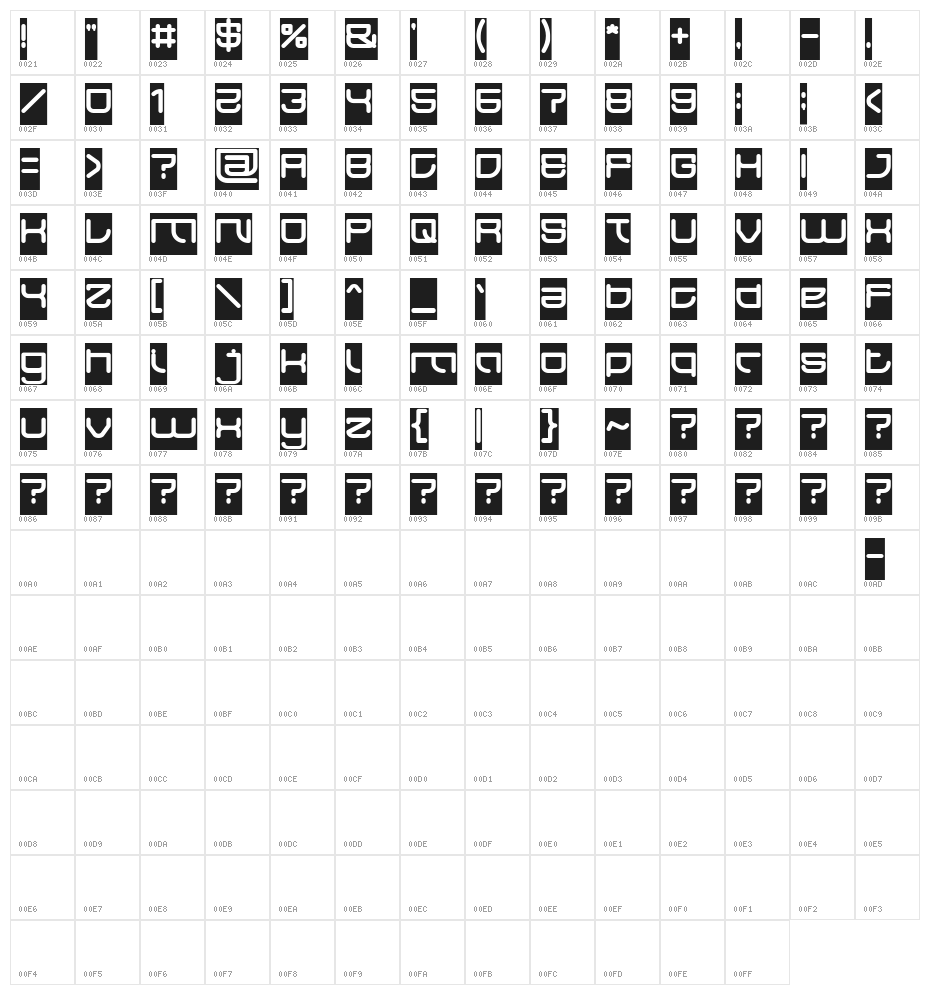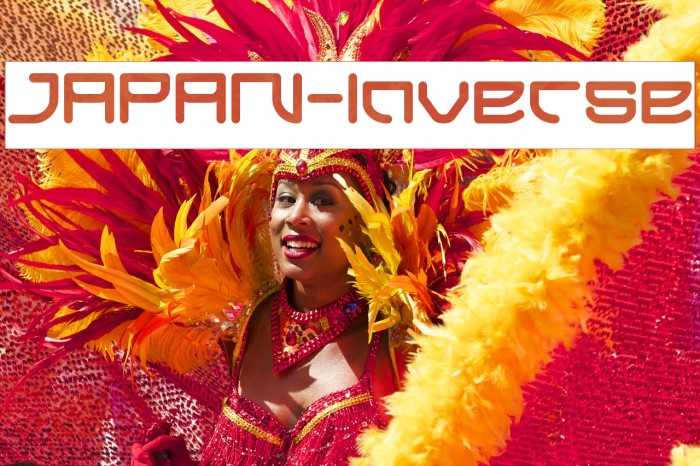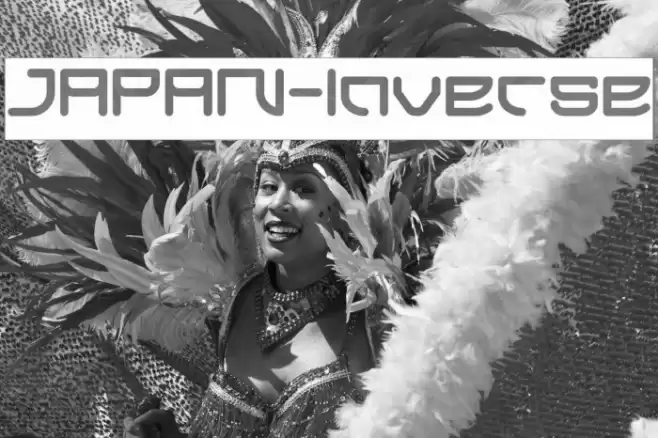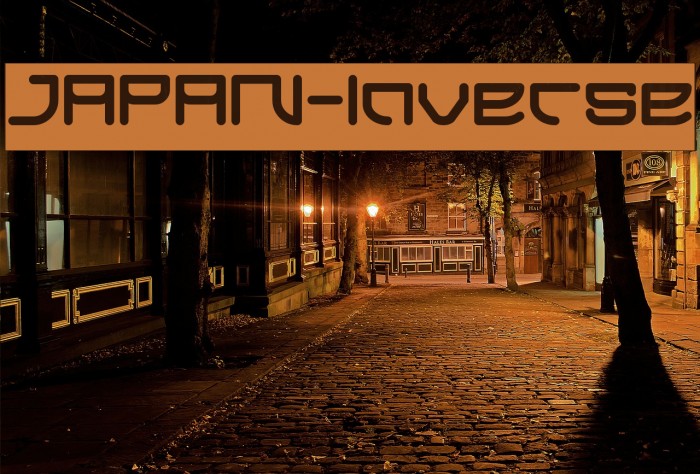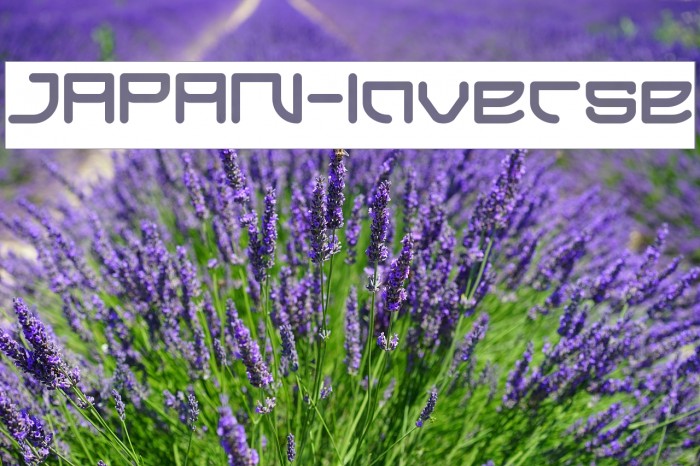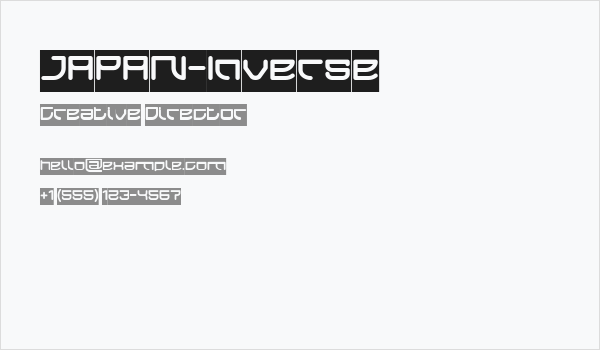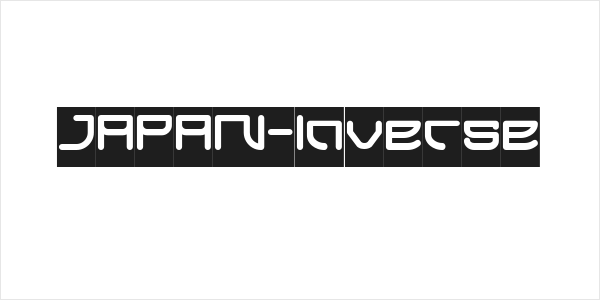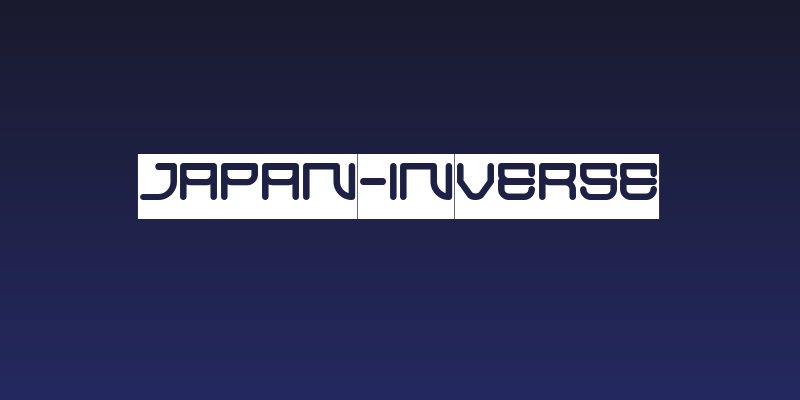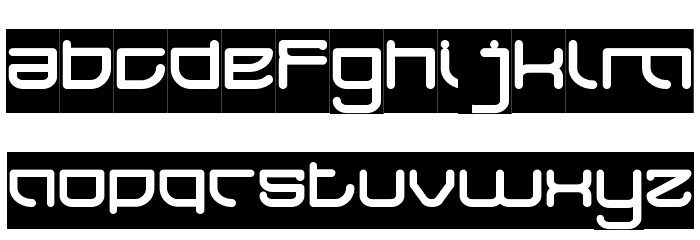
JAPAN-Inverse Font
JAPAN-Inverse Description
This font features a futuristic and geometric design with a distinctively modern appeal. The characters are crafted with smooth, rounded edges and a consistent stroke width, giving it a sleek and cohesive look. The uppercase and lowercase letters maintain a uniform style, with a slight variation in height and width that adds visual interest. The numerals and special characters are designed to match the overall aesthetic, ensuring a harmonious appearance across all text. The font's clean lines and contemporary style make it suitable for a variety of digital and print applications.
| Proposed Projects | Ideal for tech-related branding, modern website headers, digital interfaces, and futuristic-themed posters. |